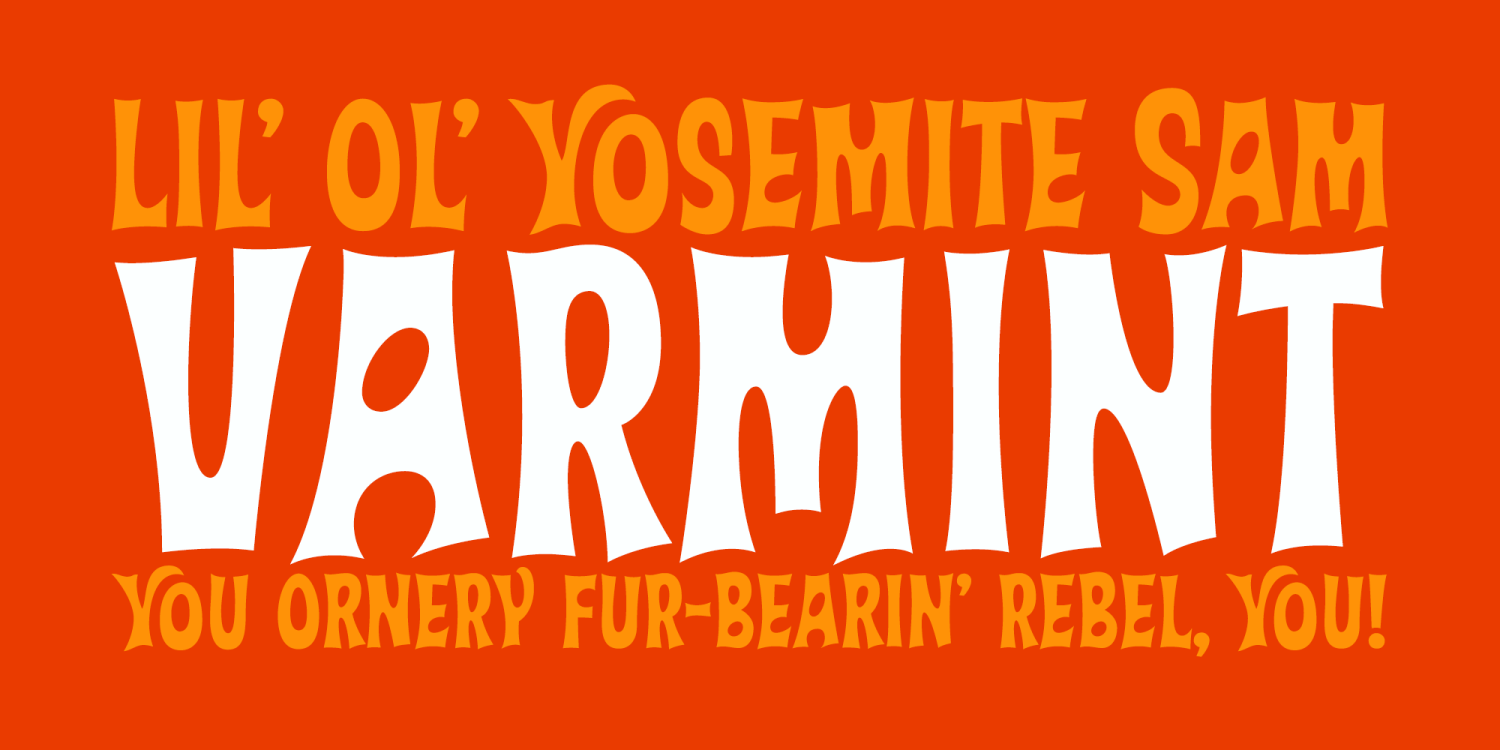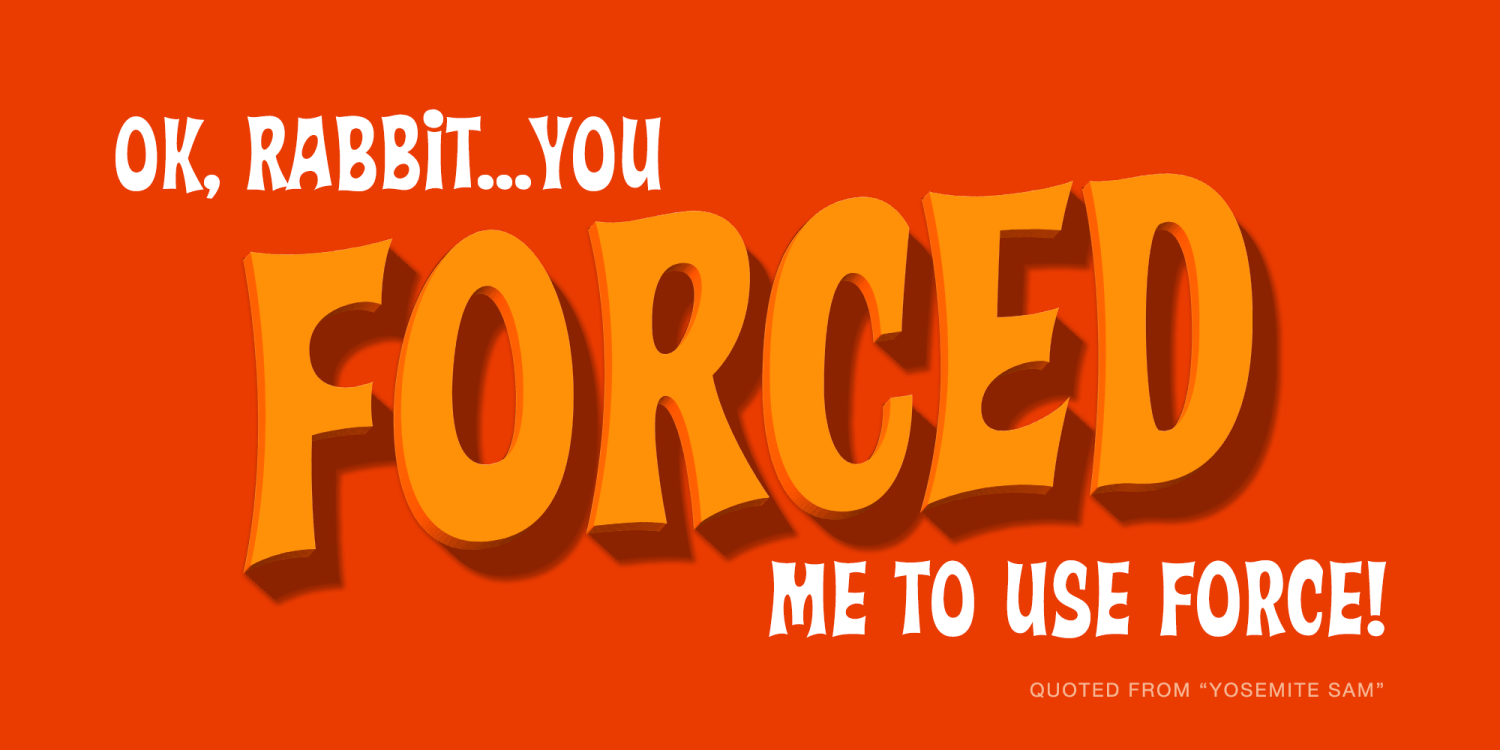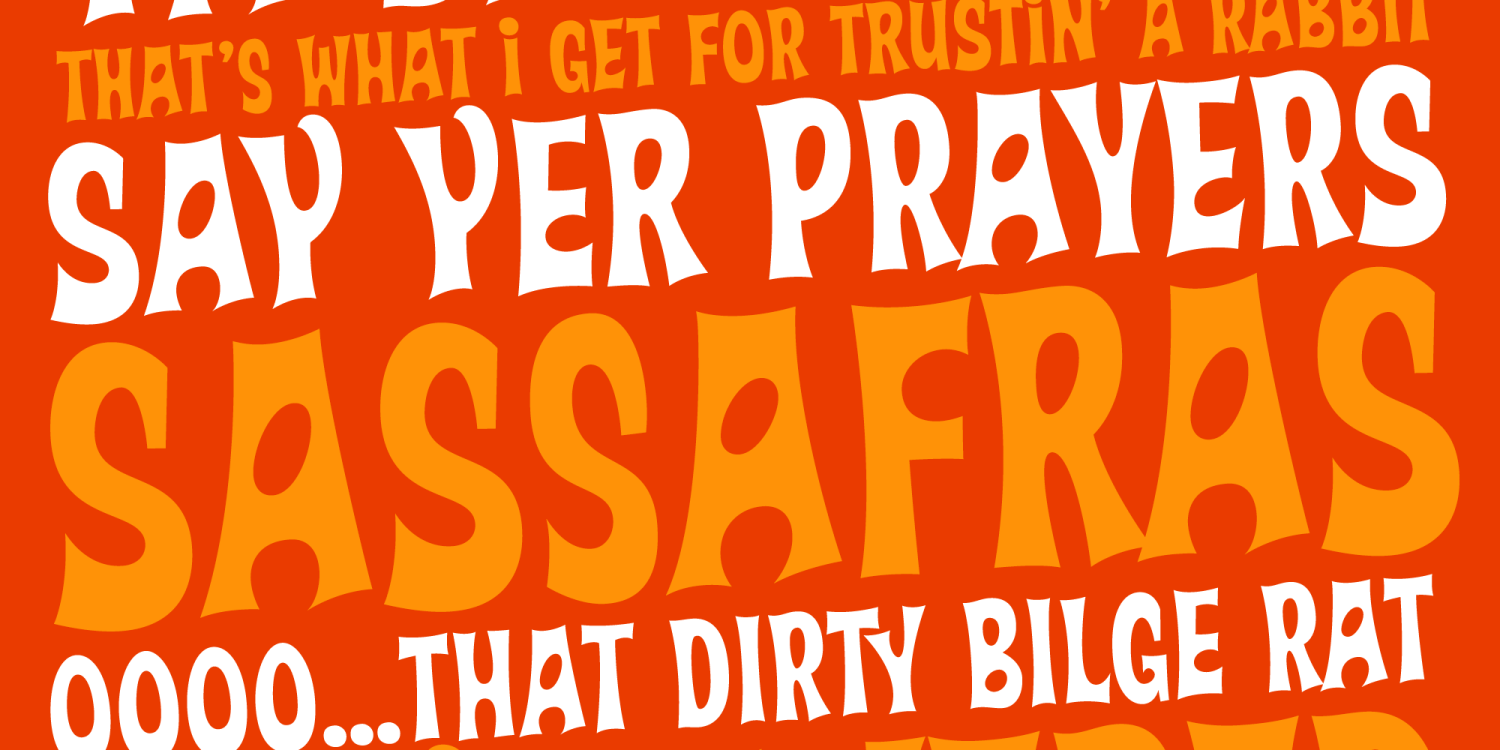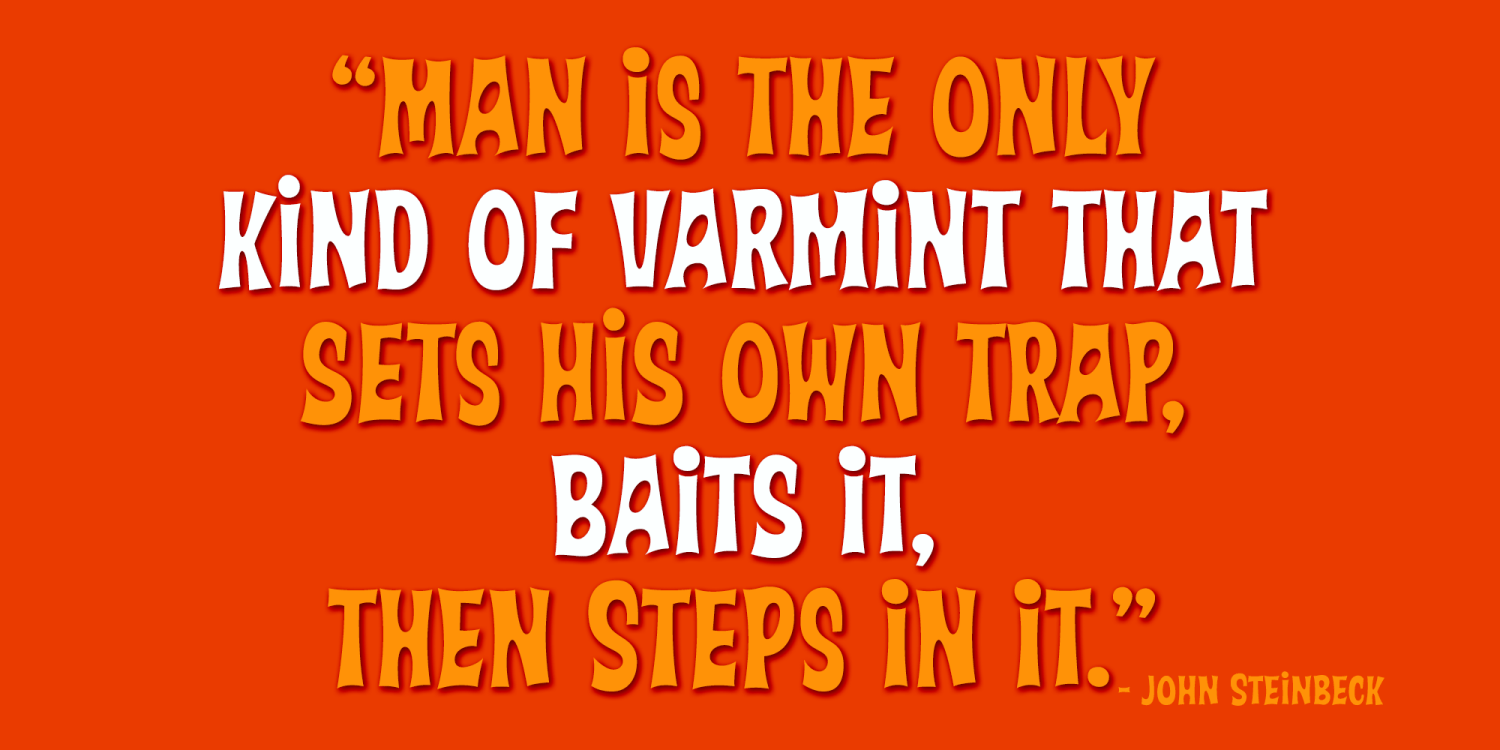
Varmint PB
Font Family by Pink Broccoli
Varmint is an offbeat flair serif font inspired by the titling of the early 1970's "Yosemite Sam & Bugs Bunny" comics from Gold Key. Playing up a Capitals and Alt-Capitals character set, with just a few ligatures, this wonderful typeface is funky and fun to type with.